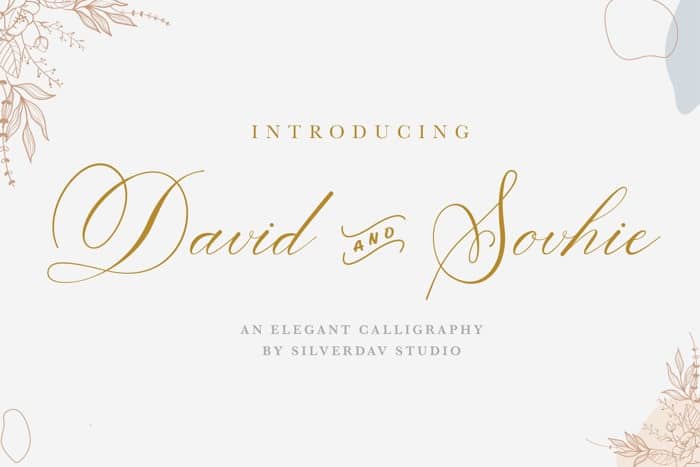
David And Sovhie Calligraphy Font
David And Sovhie Font is another lovely modern calligraphy typefaces, which is combining the style of classic calligraphy with an modern style.
combines from copperplate to contemporary typeface with a dancing baseline, modern and elegant touch. This font suitable for wedding invitation, greeting cards, T-Shirt, Logo or any design that you create.